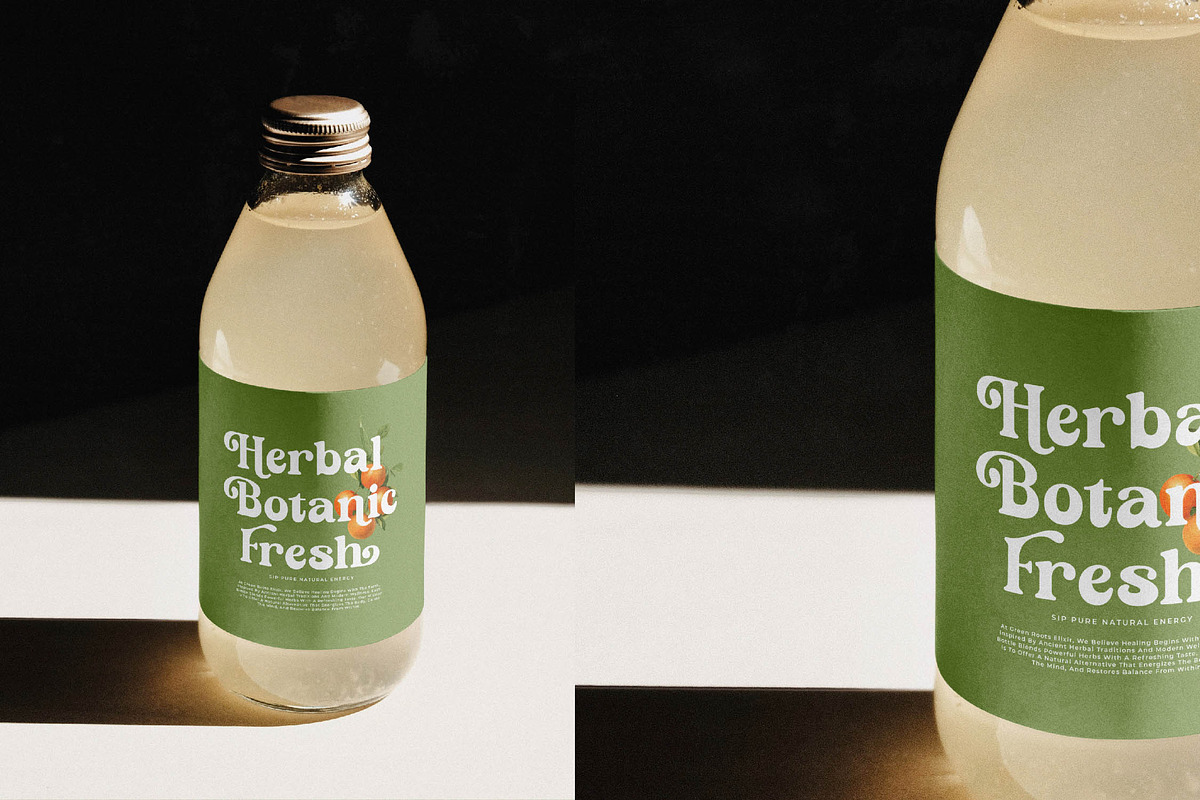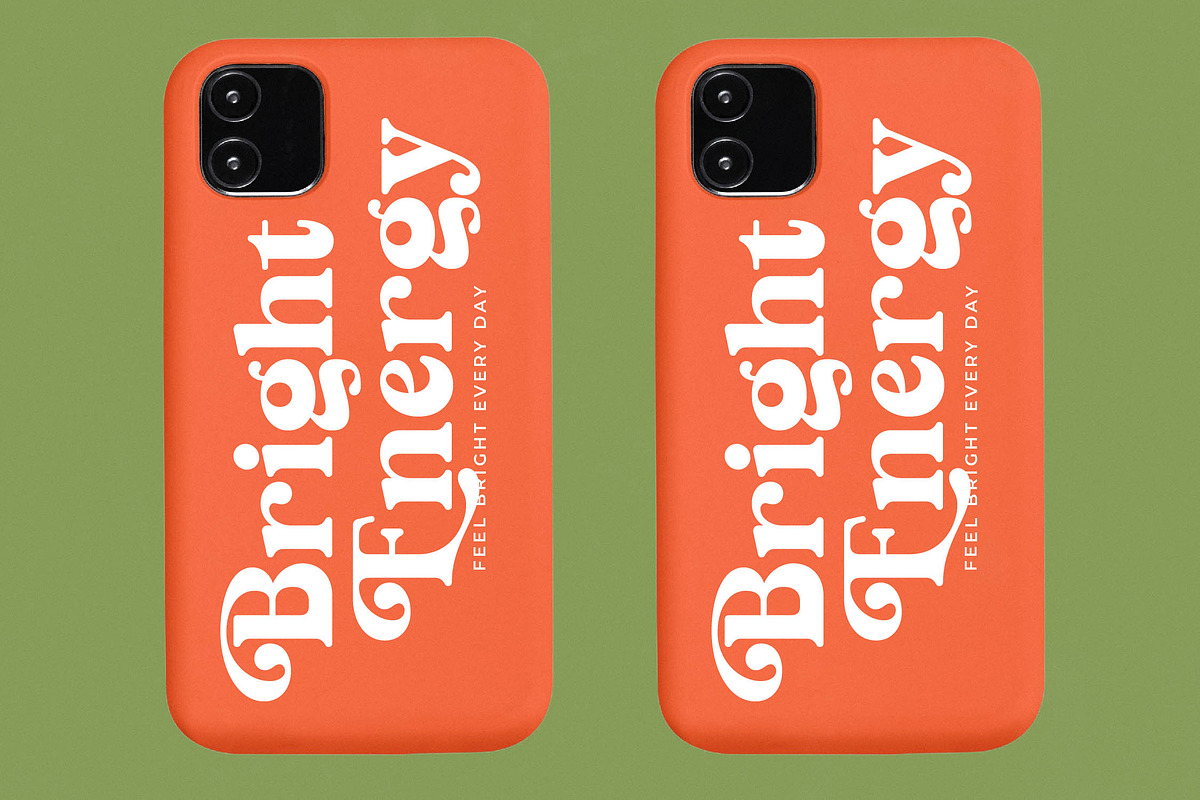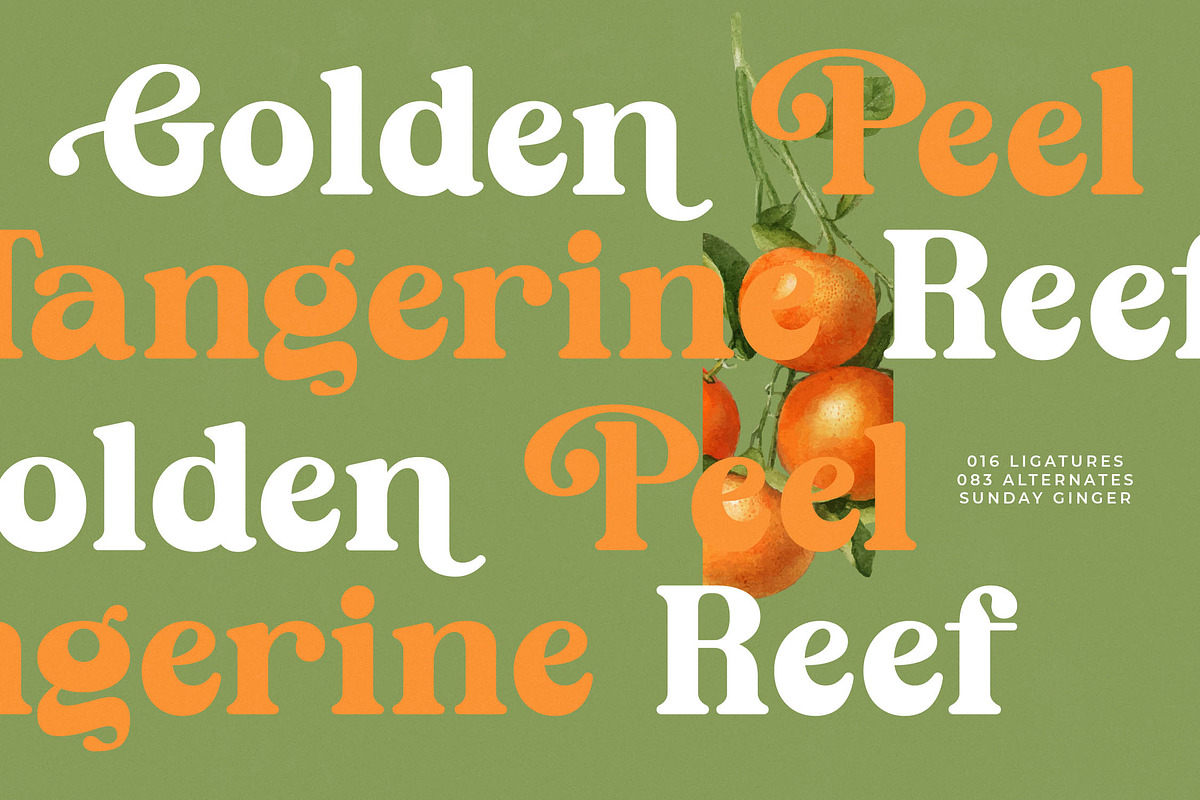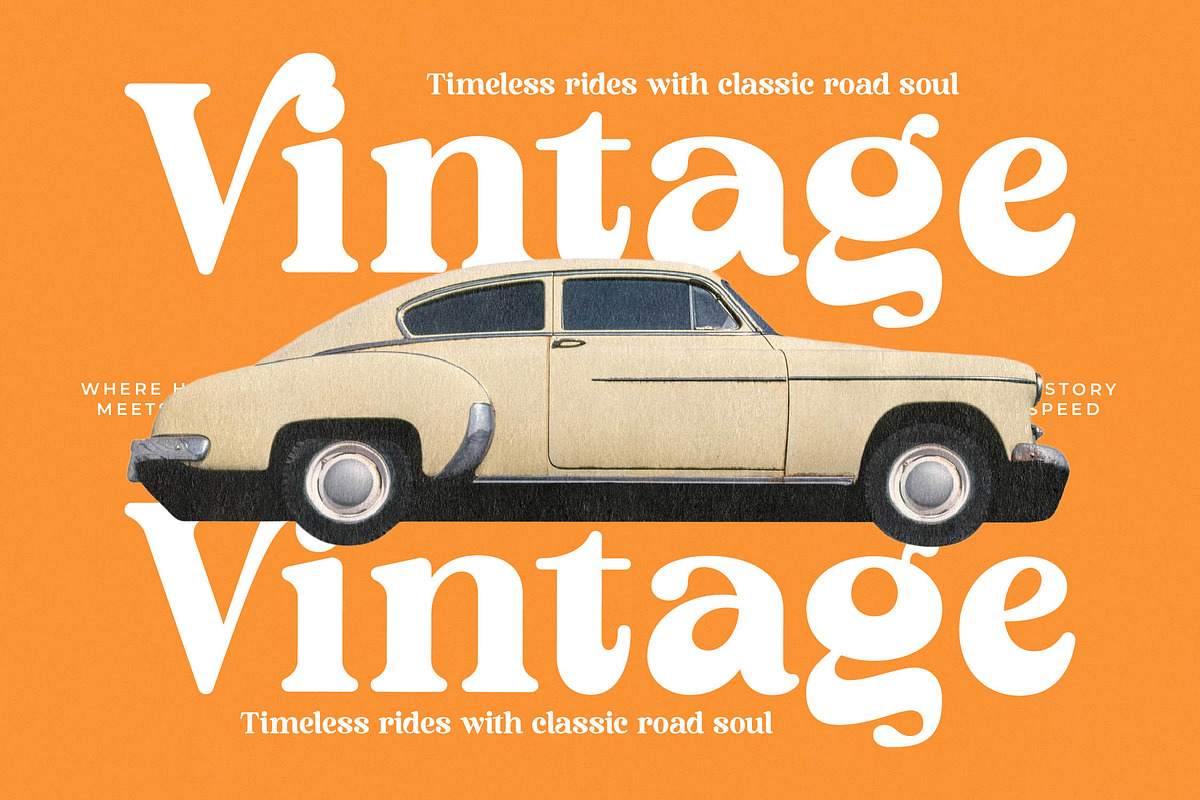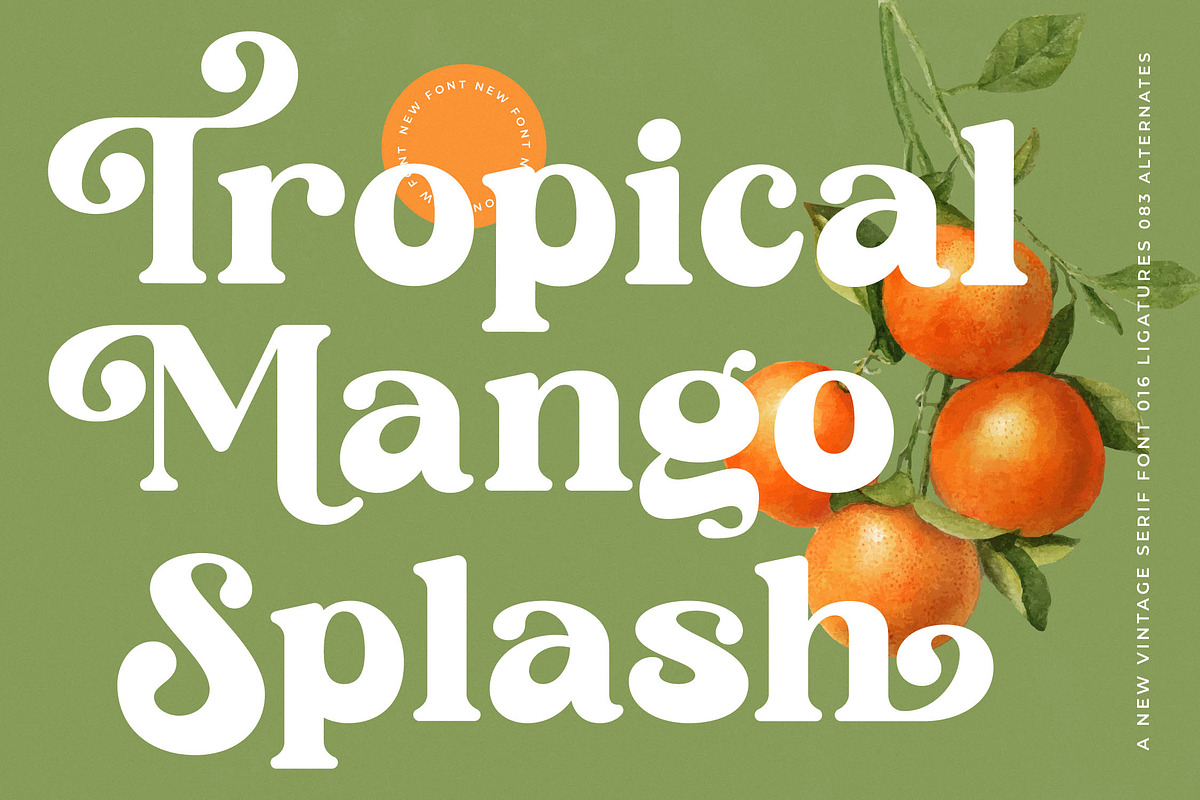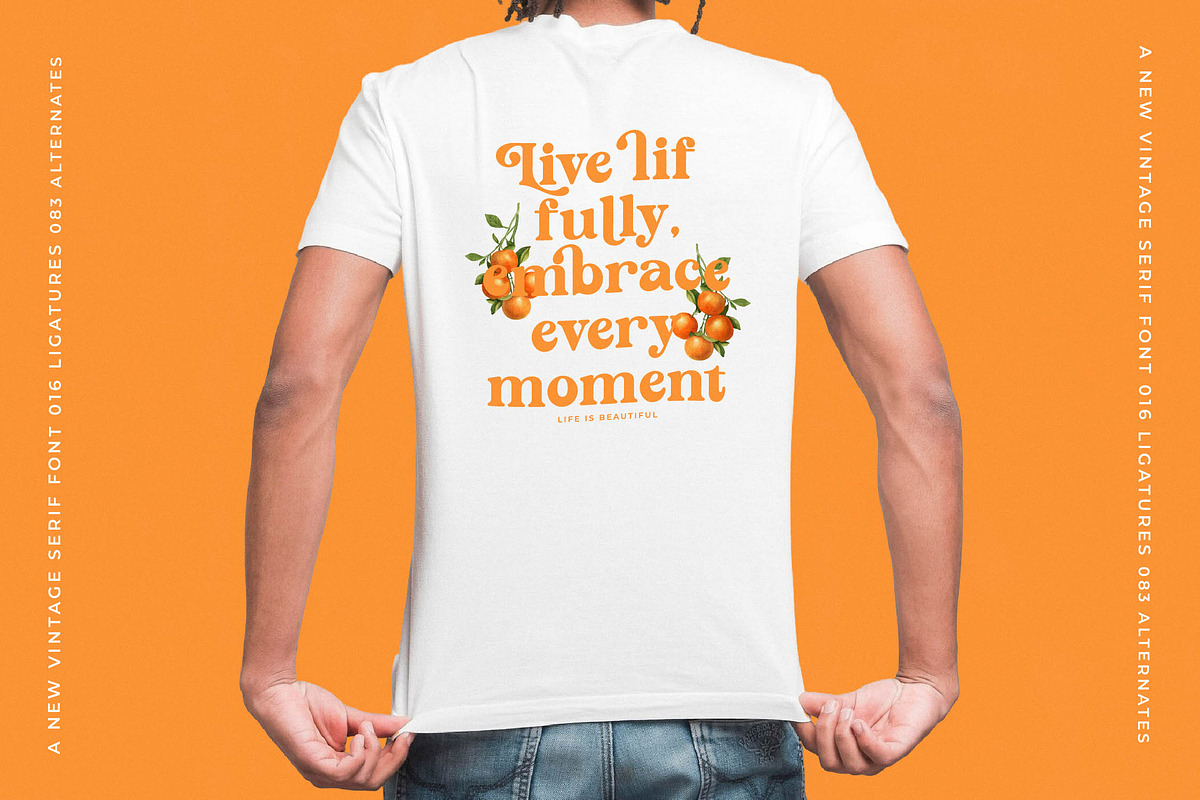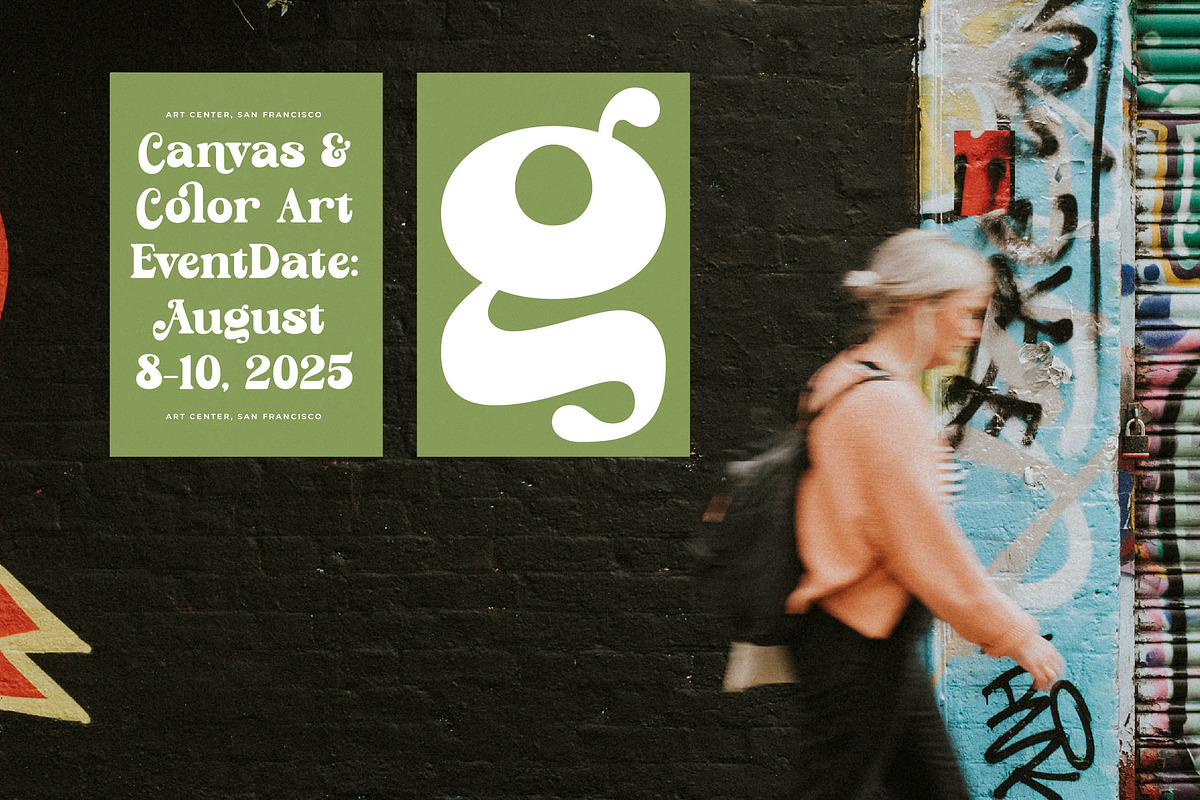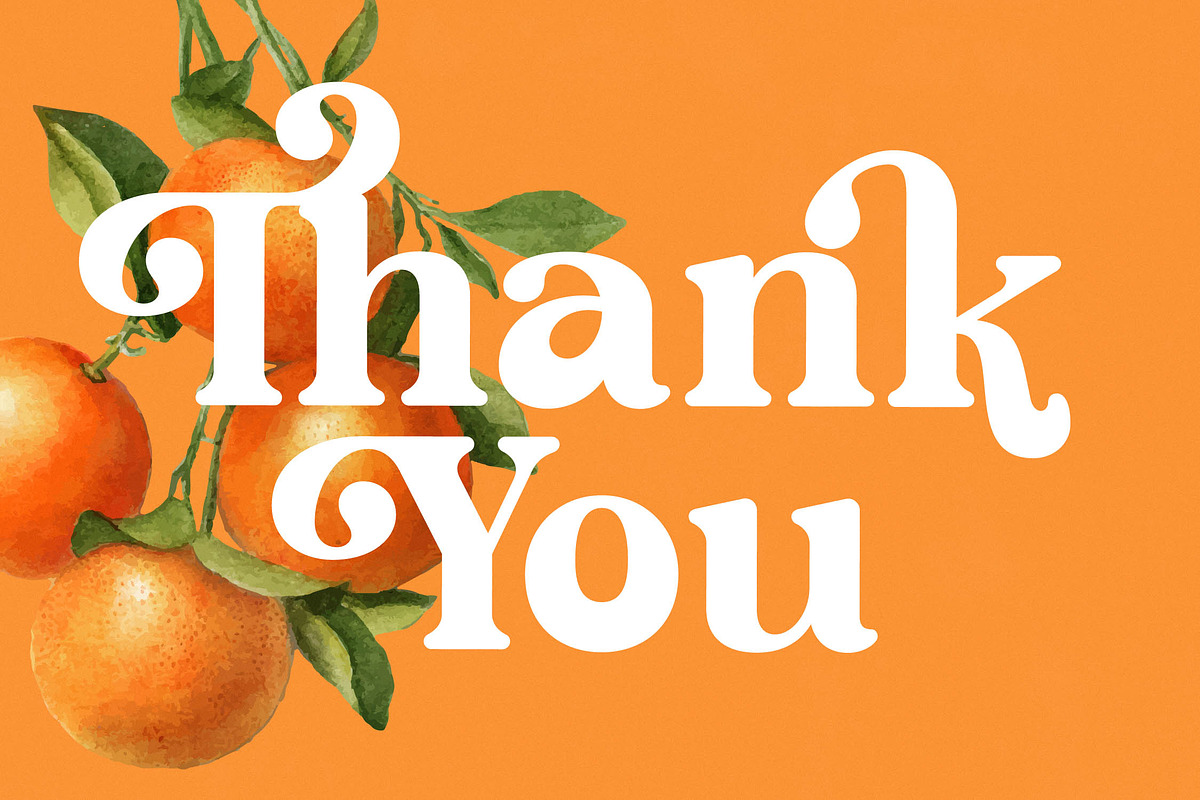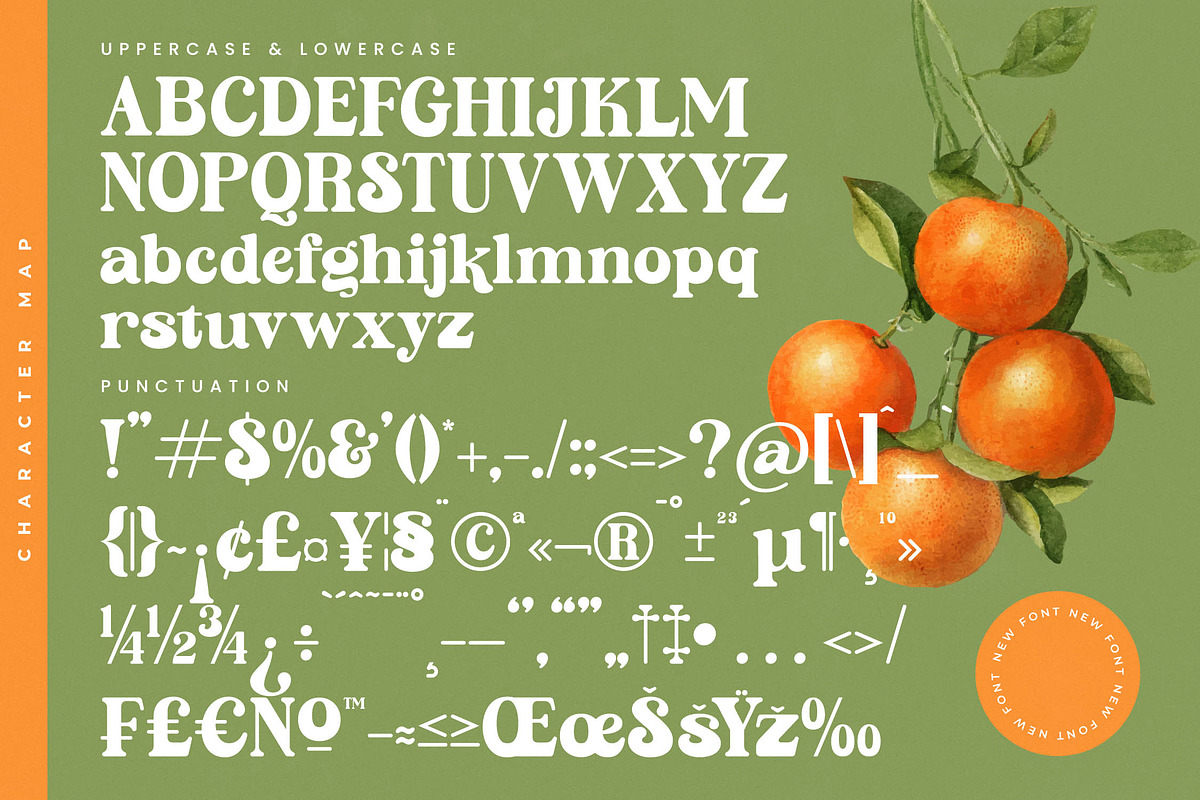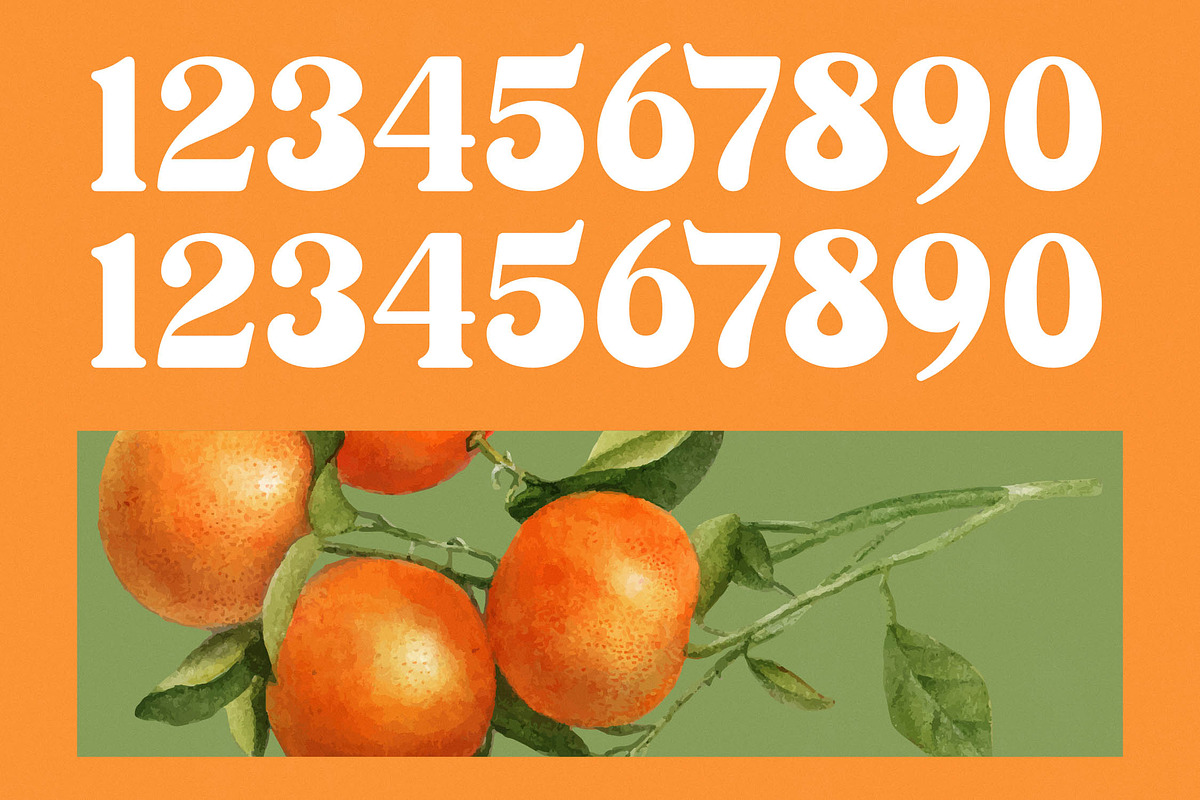
Sunday Ginger Vintage Serif
Sunday Ginger captures the essence of a sun-drenched afternoon, blending nostalgic warmth with sophisticated editorial design. It is a typeface designed to evoke memories and create a lasting impression on any creative canvas.
Drawing inspiration from vintage botanical illustrations and 1970s magazine layouts, this font celebrates the organic rhythm of natural forms. Its soft, rounded terminals and sharp serifs reflect a harmonious balance between the heritage of the past and the clarity of the present.
This modern serif display offers an unparalleled luxury typography experience for designers seeking maximum branding impact. Its high-contrast serif construction ensures that every word reads like a curated headline, making it the definitive editorial font for high-end projects.
As the modern serif trend continues to dominate the visual landscape, character-driven typography has become essential for brands wanting to stand out from the crowd. Sunday Ginger fits perfectly into this aesthetic, providing the unique flair required for today's most popular editorial display fonts.
Ideally suited for high-impact logo design and comprehensive visual branding, this typeface also excels in editorial layouts and luxury packaging. It is a versatile choice for a timeless wedding suite or a bold fashion lookbook that requires a touch of vintage soul.
The set is packed with over 80 alternates and unique ligatures to give your text a custom, hand-lettered feel. With full multilingual support and a wide range of international characters, it also includes decorative swashes to enhance your creative workflow.
- Ligature 016 Alternate 083